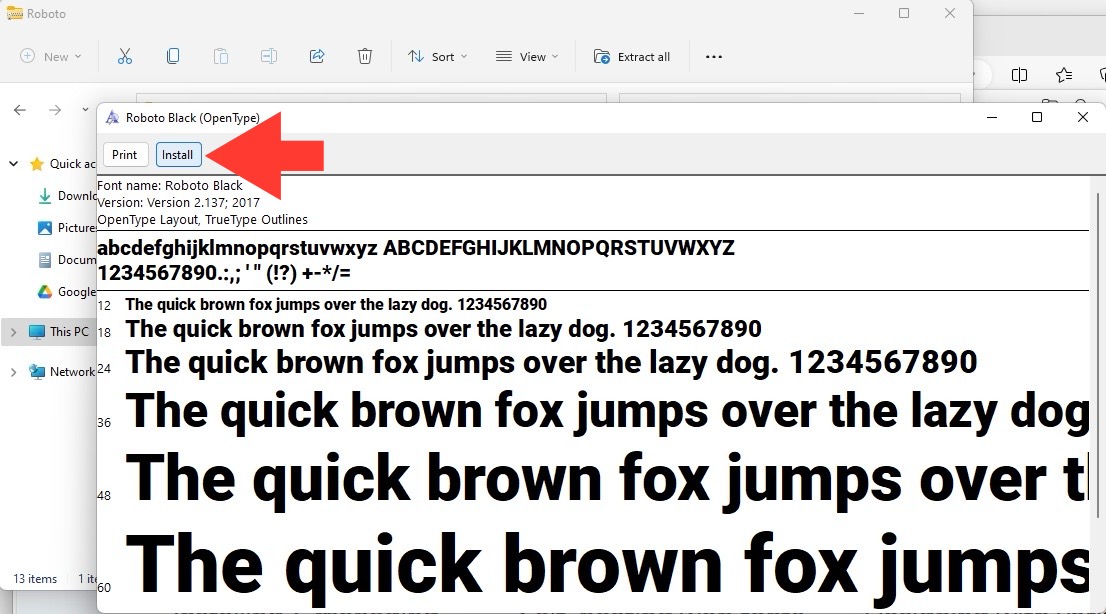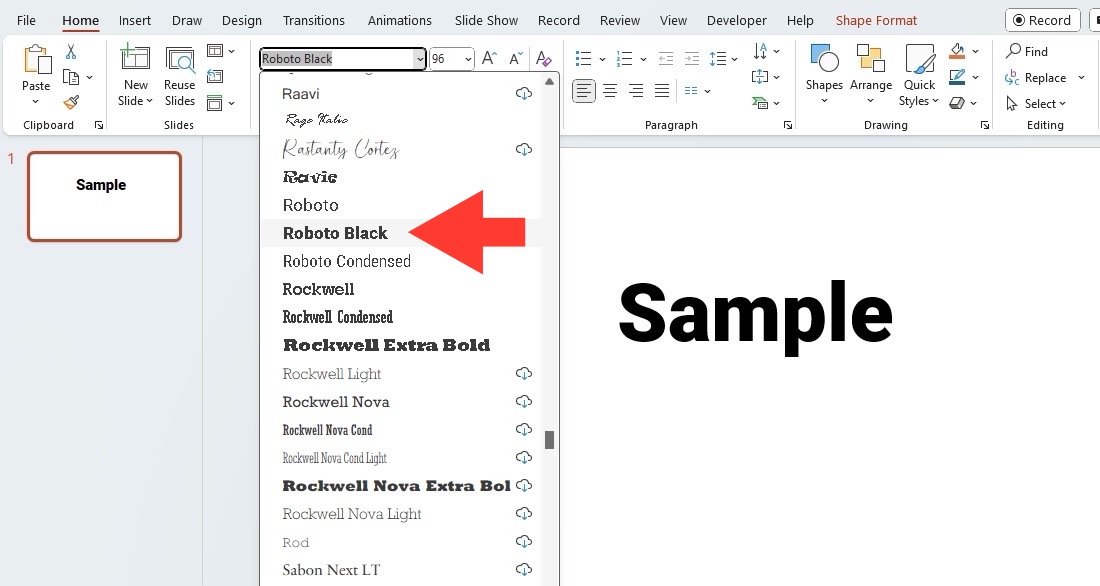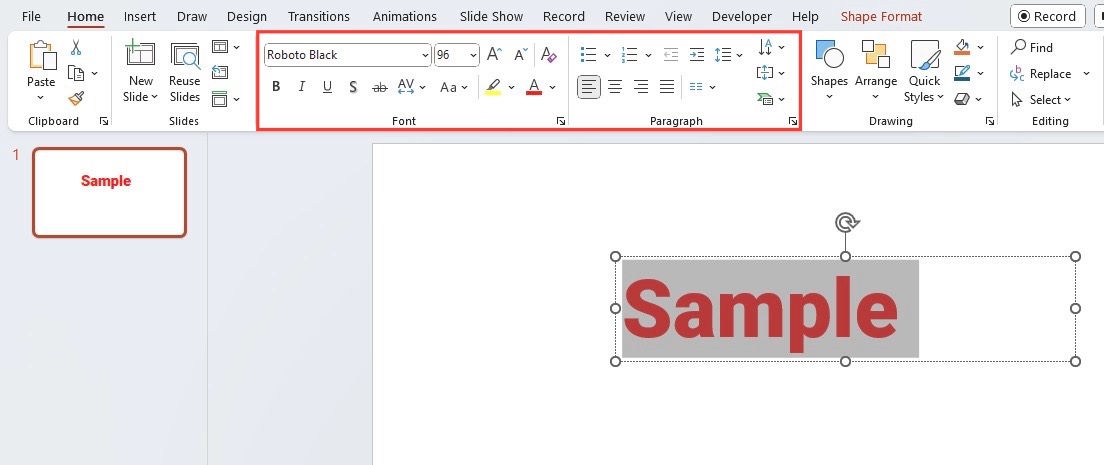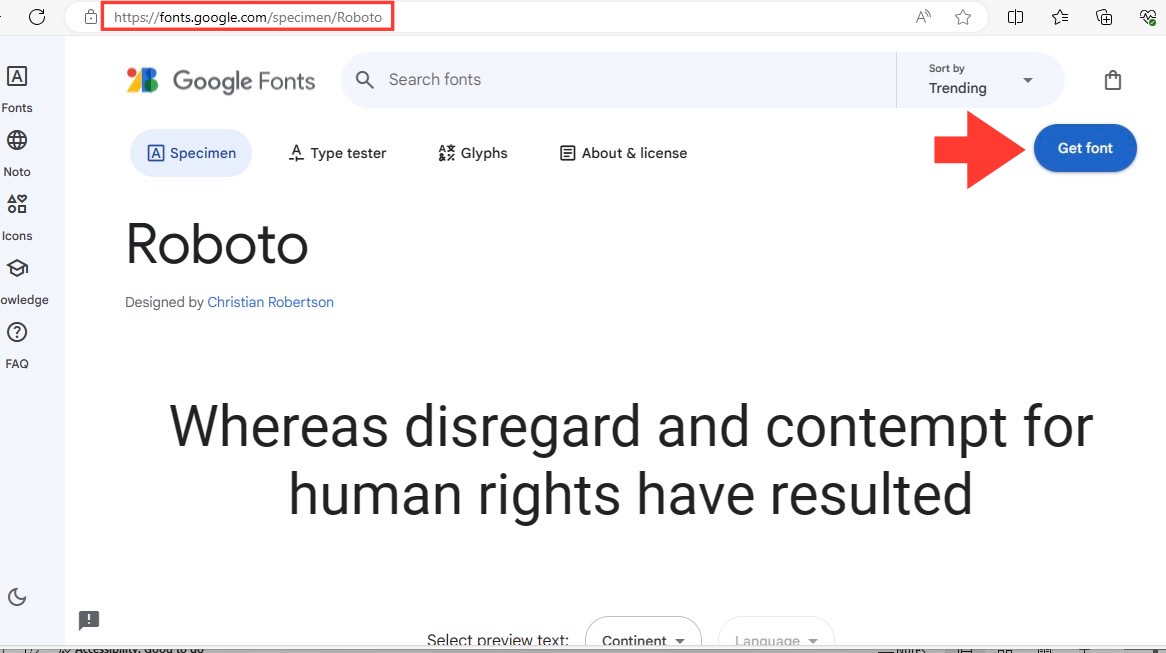
How to Download & Use New Fonts in PowerPoint
The Importance of Good Font Choices.
Good font choices are essential in presentations as they set the visual tone and can profoundly affect the audience’s perception of your content.
Just like a firm handshake or confident eye contact, the fonts you use can make a critical first impression.
Fonts with clean, crisp lines often convey a sense of modern professionalism, while more whimsical or ornate typefaces might set a casual, creative atmosphere.
Think of fonts as the wardrobe of your presentation—dress them appropriately for the occasion.
Why Adding New Fonts Can Transform Your Slides
Stepping away from the default fonts in PowerPoint and introducing new ones can be a game-changer for your slides. They can breathe new life into your presentation, offering a refreshingly unique twist that captivates your audience. You’re not just providing information; you’re telling a story, and the fonts you choose are the narrators. They can either speak in a monotonous drawl or with a flair that piques interest. By customizing your typography, you enhance not only the aesthetic but also the persuasive power of your presentation.
• Ensure readability and professionalism by choosing easily legible fonts like Arial or Helvetica for your slides, and limit font usage to two or three types to keep the presentation cohesive and organized.
A Step-by-Step Guide to Finding and Downloading Stylish Fonts
Locating Custom Fonts for PowerPoint Use
When you’re on the hunt for that perfect typeface to spice up your slides, it all starts with finding the right custom fonts for PowerPoint use. Begin your search by exploring a trove of online resources. Websites like Google Fonts, Font Squirrel, and DaFont offer an array of typefaces, from the sleek and professional to the playful and avant-garde. Remember to keep in mind the tone of your presentation and the compatibility of the fonts with your PowerPoint version. Download fonts from reputable sources to avoid any licensing issues or digital hiccups.
STEP 4: Look for the “Install Font” button in this preview window and click on it.
STEP 5: After the installation is complete, open the Font Book app to see your newly added font featured among your collection.
These new fonts are now fully integrated into your system, and you can jazz up your PowerPoint slides with them. Remember, installed fonts are available immediately in PowerPoint, and you can start using them as soon as you restart the application.
Embedding Fonts to Preserve Style Across Devices
Ensuring Font Consistency in Shared Presentations
Ensuring font consistency in shared presentations is critical, especially if you’re collaborating with others or presenting on different devices. Without consistent fonts, your carefully designed slides could lose their intended formatting, leading to unprofessional-looking presentations. To avoid this, always check that the fonts used in your presentation are common system fonts that most computers will have installed. If you’re using custom or non-standard fonts, PowerPoint offers a feature to embed them directly into your presentation file. This embedding process ensures that the font style stays intact, no matter where your presentation is opened.
How Embedding Fonts Prevents Unwanted Surprises
Embedding fonts in your PowerPoint presentation is a foolproof way to maintain the integrity of your design, preventing any unwelcome surprises when the slides are viewed on different systems. This subtle yet powerful feature allows you to keep your text looking exactly as you intended, irrespective of whether the viewing computer has the custom fonts installed. It eliminates the risk of automatic font substitution, which can alter the layout and look of your slides, often resulting in misalignment, awkward spacing, and even missing symbols. So, when you’re looking to share or display your presentation with confidence, remember to embed the fonts to ensure your audience sees your work precisely as you created it.